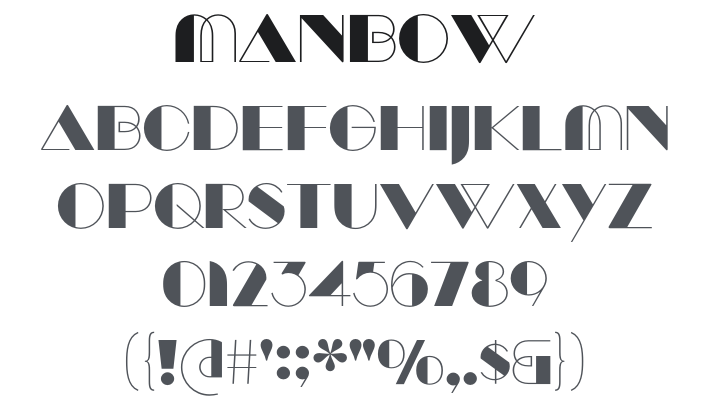
Manbow Font Family
About Manbow
Manbow is a bold geometric Art Deco display typeface with a futuristic edge — clean, elegant letterforms that blend 1920s sophistication with sci-fi precision. What makes it special is its 9 layerable pattern variants: solid, transparent, stripe, polka-dot, screen, dots, spots, lines, and tone — enabling vibrant multicolour combinations. Perfect for retro-futuristic posters, fashion branding, editorial headlines, and any design needing striking decorative depth.